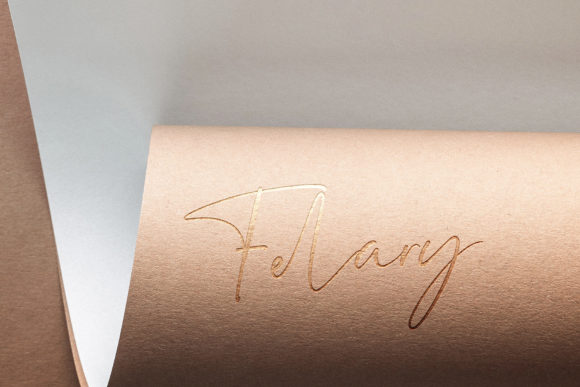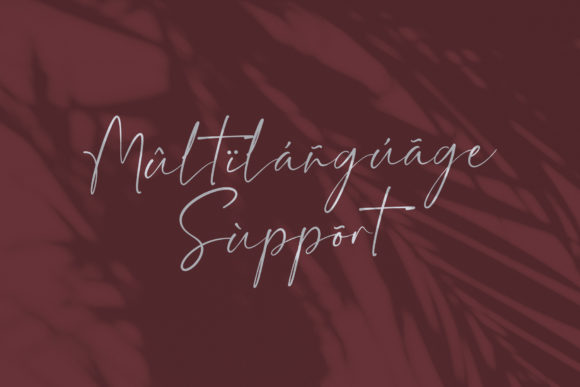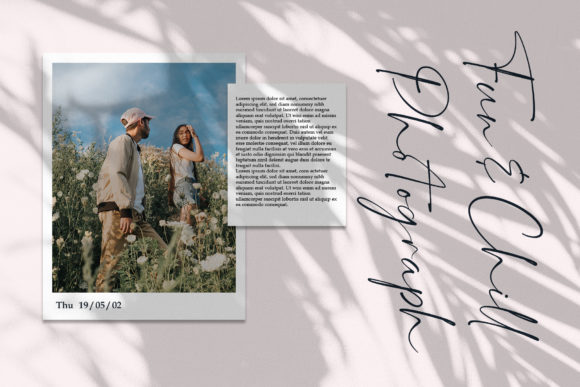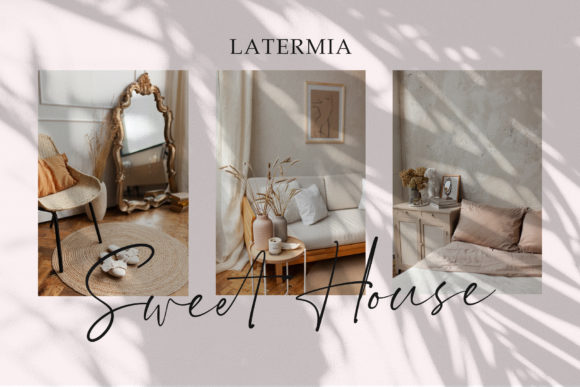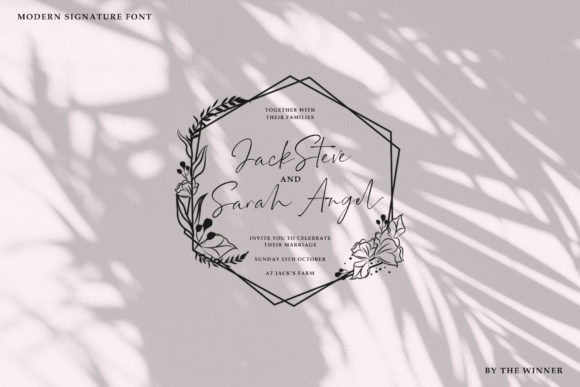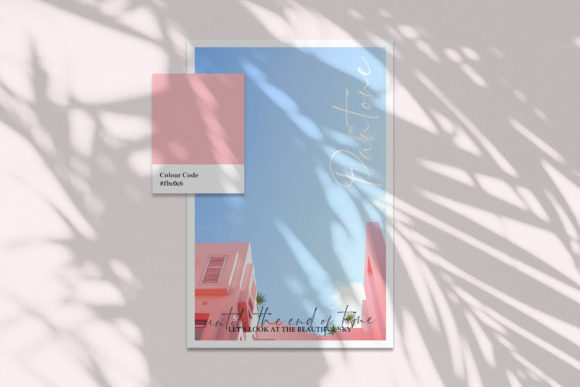
The Perfect Script Font to Elevate Your Creative Projects
Imagine you’re brainstorming a new logo design, and you need that one special font to make it pop. The words “unique” and “neat” come to mind as you scroll through your font library, and then you see it – the Chariot Font. This stylish script font is designed to add a touch of elegance to your creative projects, making them truly unforgettable.
The Chariot Font is perfect for logos, branding, invitations, posters, apparel, and layout design. Its versatility makes it a valuable addition to any designer’s toolkit. Whether you’re working on a high-end fashion brand or a quirky art project, this font will bring your vision to life. With its versatility and unique style, the Chariot Font is sure to become your go-to choice for adding that extra special something to your designs.
Chariot Font Key Features
- Unique Characteristics: Chariot Font features a distinctive, modern design with a mix of geometric and organic elements, making it suitable for a wide range of design projects, from corporate branding to digital products.
Chariot Font Review
Overall, I think the Chariot Font is a solid choice for designers looking for a modern and elegant typeface. ✨ Here are some of its strengths:
- Unique and distinctive character set
- Works well in both digital and print formats
- Good for headings and titles, but also suitable for body text
However, there are some limitations to consider: ⚠️
- Some characters may be difficult to read at small font sizes
- Lack of bold and italic weights, which may limit its versatility
- Not as extensive a character set as some other fonts
In my opinion, the Chariot Font is a great choice for designers who want a clean and sophisticated look. It’s perfect for projects that require a touch of elegance and refinement. While it may not be the most versatile font out there, it’s definitely worth considering for the right project.
Getting the Most Out of Chariot Font
For best results, use the Chariot Font in combination with bold or italic styles to add emphasis and visual interest.
Experiment with different font sizes and colors to create a unique look and feel.
Use the Chariot Font in headings and titles to create a clear hierarchy of information.
The Chariot Font is ideal for:
Creating modern and sleek designs.
Adding a touch of elegance and sophistication to your work.
Designing logos, branding materials, and marketing materials.